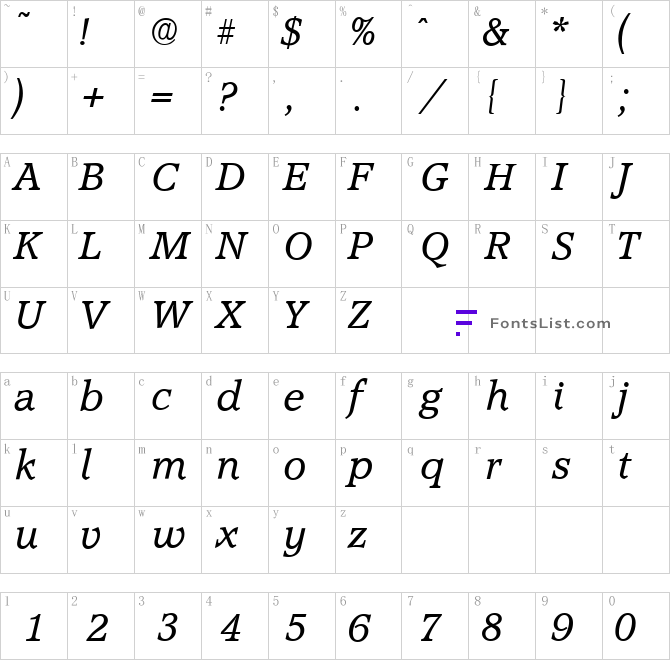
- Font Name:AccoladeSerial
- Subfamily:SoftMaker Software GmbH AccoladeSerial-Italic
- Full Name:AccoladeSerial-Italic
AccoladeSerial-Italic.ttf is a very beautiful artistic font, AccoladeSerial-Italic.ttf is widely used in the design and printing of various books and pictures,AccoladeSerial-Italic.ttf has a strong visual impact,AccoladeSerial-Italic.ttf is a commonly used font in newspapers, magazines and books, and is used in posters, e-commerce Poster design, store design, logo design, font design and other fields.AccoladeSerial-Italic.